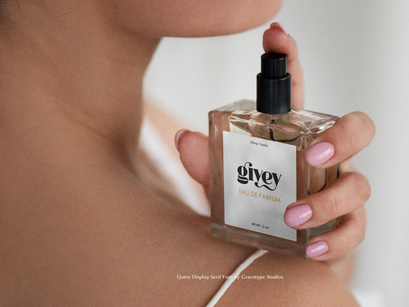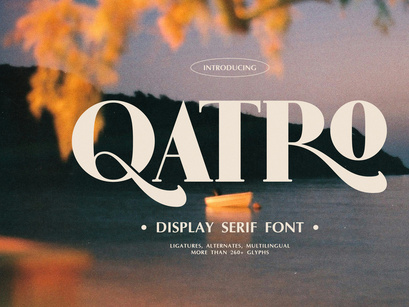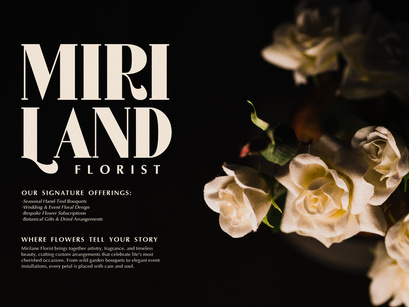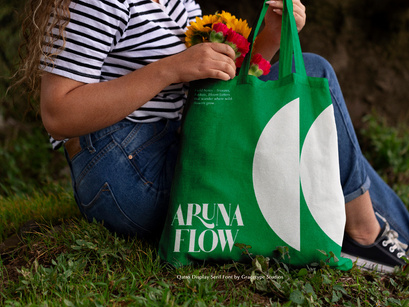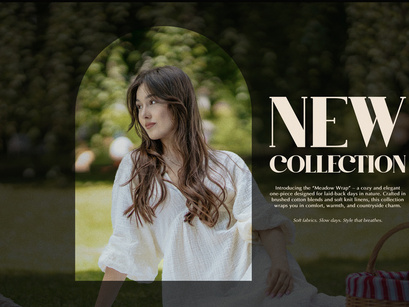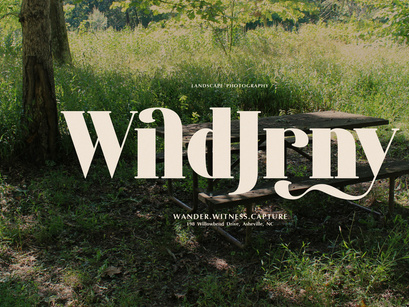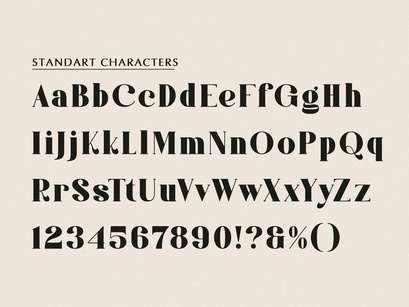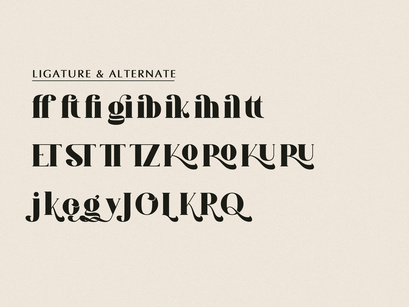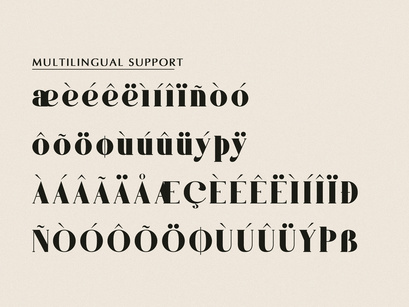
Qatro | Display Serif Font
Qatro Italic
Qatro | Display Serif Font, from Gracetypestudio, suitable for any projects such as: logos, branding projects, homeware designs, product packaging, mugs, quotes, posters, shopping bags, t-shirts, book covers, name card, invitation cards, greeting cards, label, photography, watermark, special events, and all your other lovely projects that need a Display Serif Font taste.